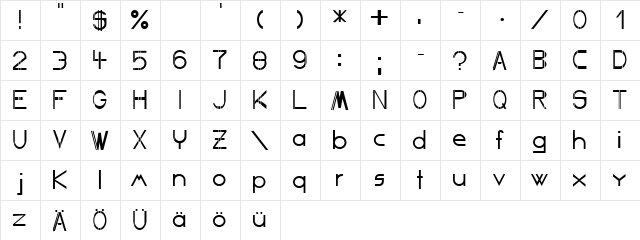
Competent Regular
Design Context for Competent Typeface
Competent offers clean, dependable letterforms without strong stylistic allegiance, making it a practical choice for designers who need flexibility.
Pro Tip: Use Competent in both headline and body roles to test its range before committing to a single application.